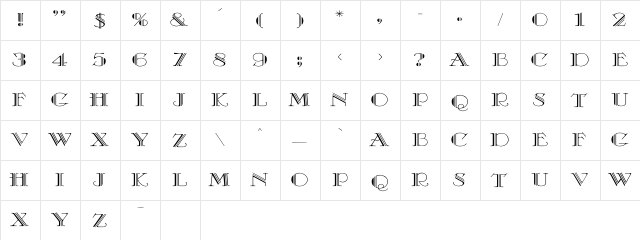
TuxedoBold Regular Free Font
TuxedoBold Regular
Design Context for TuxedoBold
TuxedoBold is a composed and adaptable typeface that performs quietly and consistently across a wide range of design contexts. Its bold stroke weight gives it real presence on the page.